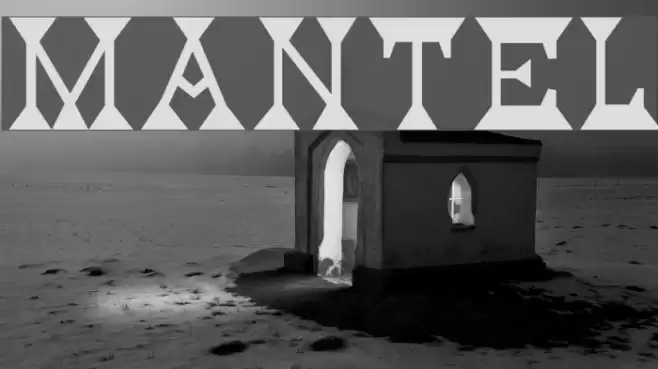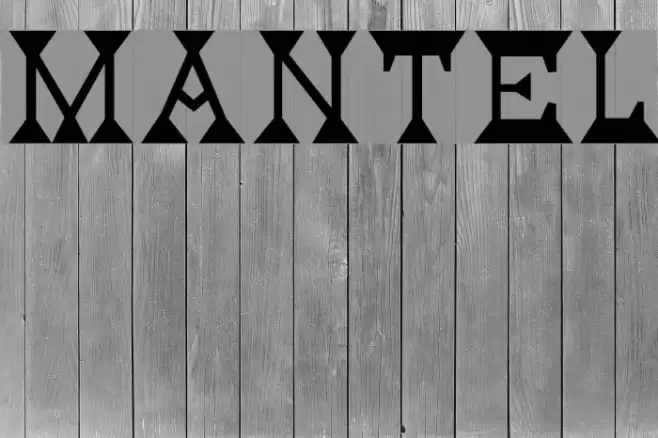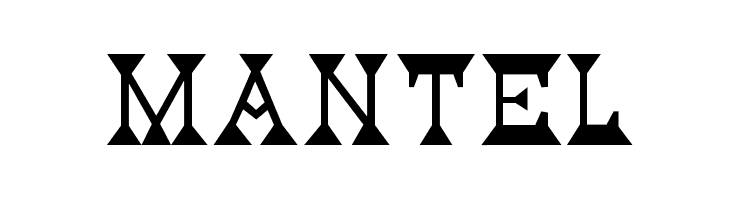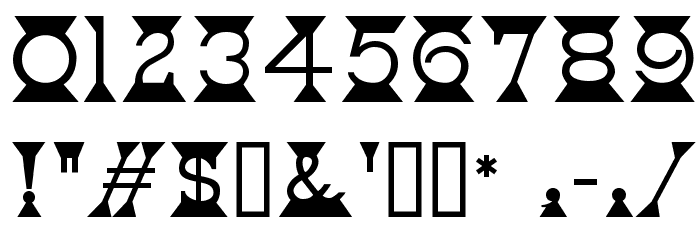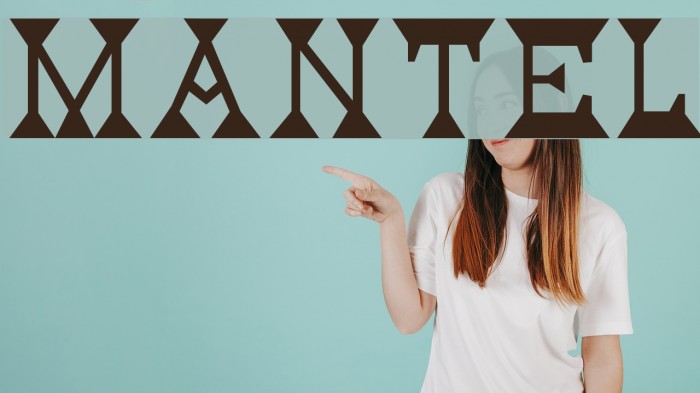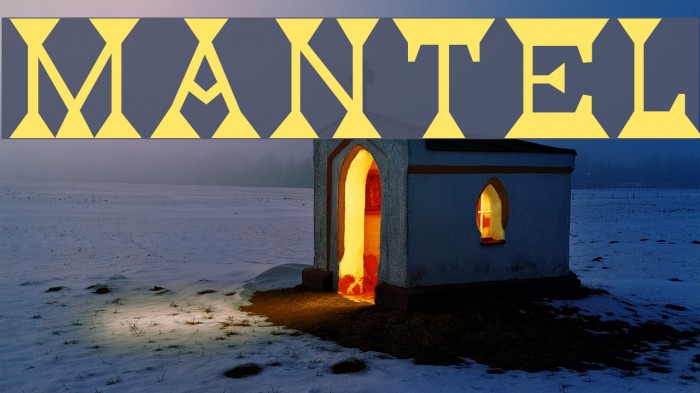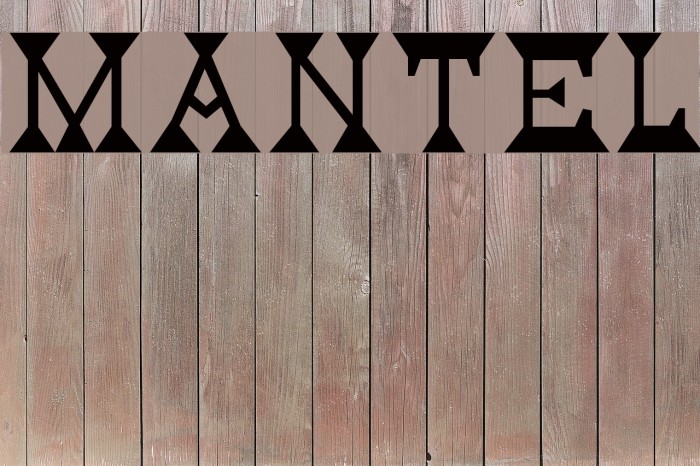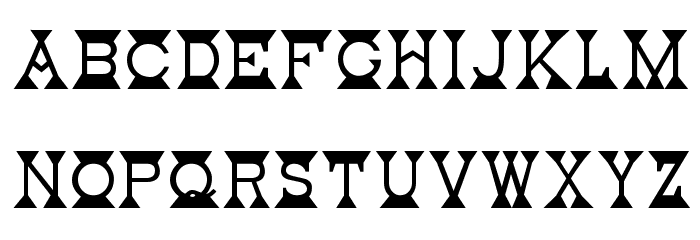
Mantel Font
Mantel Description
This font features a bold and geometric design, characterized by its unique cut-out shapes within each letterform. The uppercase and lowercase letters maintain a consistent style, with strong angular lines and sharp edges that create a striking visual impact. The numbers and special characters follow the same design principles, ensuring a cohesive look across all elements. The font's distinct appearance makes it ideal for attention-grabbing headlines and creative projects that require a modern and edgy aesthetic.
A bold, geometric font with unique cut-out shapes and sharp edges from Retro fonts.
- Proposed Projects: Ideal for branding, poster design, album covers, and any project needing a modern, edgy look.